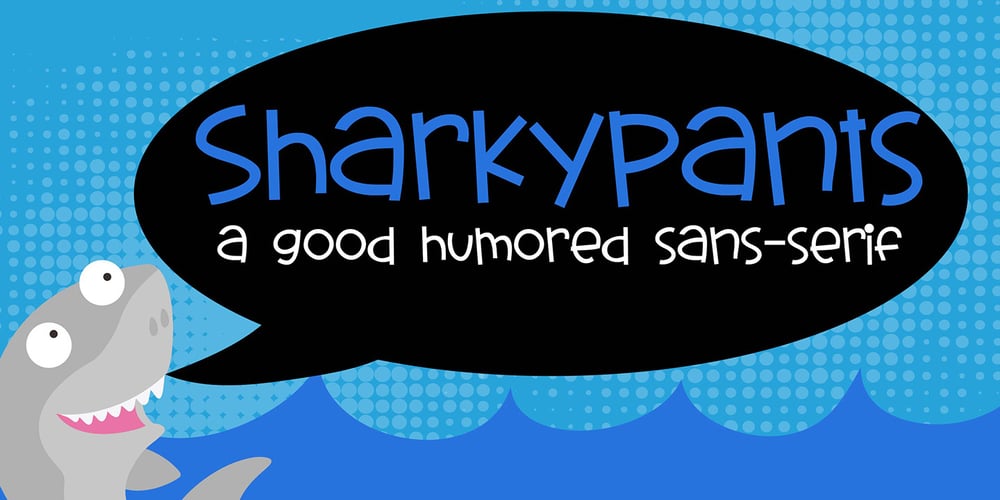
PN Sharkypants Font Family was designed by Illustration Ink and published by Illustration Ink. PN Sharkypants contains 5 styles and family package options. This whimsical font family is a hand-crafted, youthful sans-serif font with three weights and two cute sister fonts…a shadow version and a “showy” version with curls and flourishes.